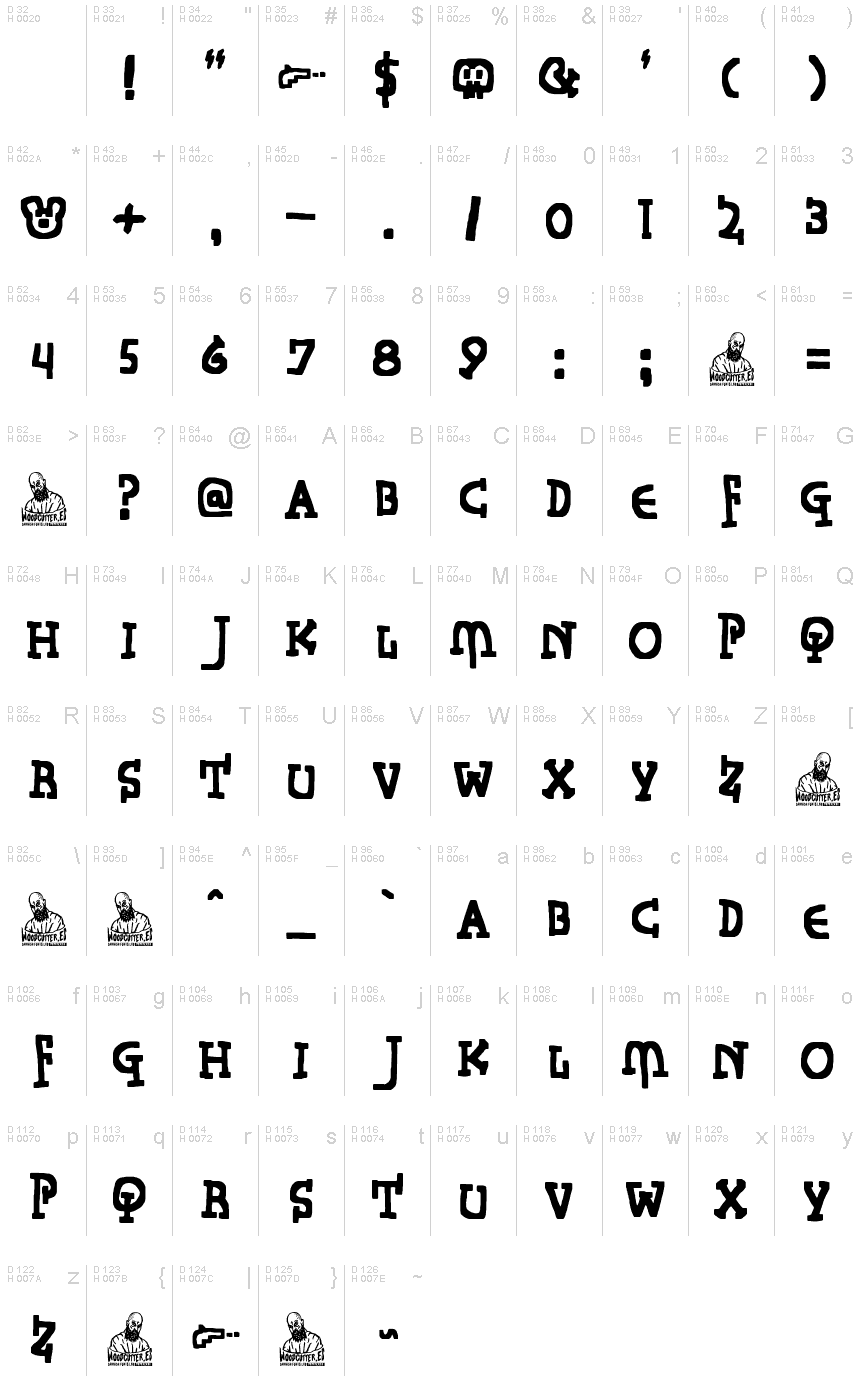
Kids Are The Future
"Kids are the Future" is a playful and imaginative display font designed by Woodcutter. With its charming cartoon-style letterforms, this font adds a touch of whimsy to any project.
Its bold and vibrant appearance makes it perfect for children's books, educational materials, and toy packaging. The friendly curves and exaggerated proportions ensure that the text stands out, creating an engaging visual experience for young readers.
Whether it's used in posters, logos, or websites, "Kids are the Future" brings joy and creativity to any design that aims to capture the hearts of children.